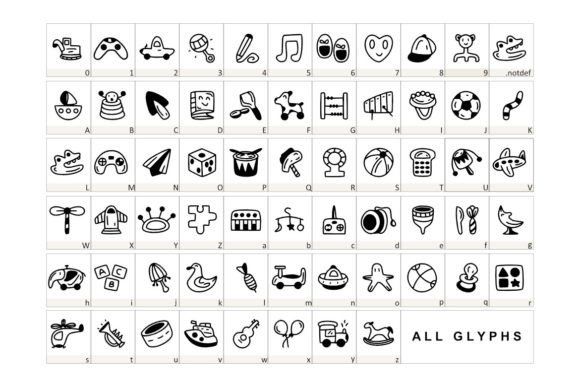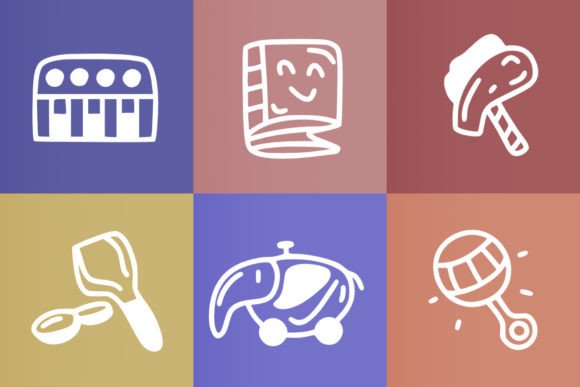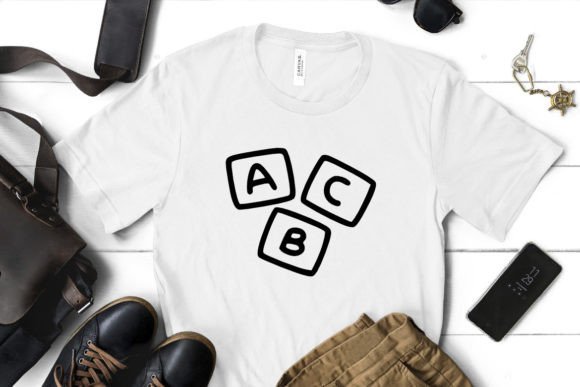
The Enjoyable Font: A Fun and Versatile Dingbat for Creative Projects
I’ll never forget the time I was working on a project for a client who wanted a fun and quirky design for their t-shirt line. I had a clear idea of what I wanted to create, but I was struggling to find the perfect font to bring it all together. That’s when I stumbled upon the Enjoyable font, and it completely transformed my design. In this article, I’ll share my experience with this amazing font, its features, and how you can use it to take your creative projects to the next level.
An Honest Review of Enjoyable Font
What I Love About Enjoyable Font
- ✨ Fun and playful design: The Enjoyable font is perfect for creating eye-catching and engaging designs that appeal to a wide range of audiences.
- ✅ Versatility: This font is suitable for a variety of projects, including stickers, posters, t-shirts, cards, and apparel graphics.
- 💡 Inspires creativity: The Enjoyable font’s unique design elements and OpenType features make it easy to experiment and try out new ideas.
While the Enjoyable font is an excellent choice for many projects, there are a few things to keep in mind:
- 🤔 Limited use in formal designs: Due to its playful nature, the Enjoyable font may not be the best fit for formal or professional designs.
- ⚠️ Requires careful kerning: As with any font, it’s essential to adjust the kerning to ensure that the text looks balanced and visually appealing.
The Backstory of Enjoyable Font
The Enjoyable font was designed with the goal of creating a fun and versatile dingbat font that could be used in a variety of creative projects. The designer wanted to create a font that would inspire users to experiment and try out new ideas. With its unique design elements and OpenType features, the Enjoyable font has become a popular choice among designers, crafters, and creative hobbyists.
Q: What type of projects is the Enjoyable font best suited for?
A: The Enjoyable font is perfect for a wide range of projects, including stickers, posters, t-shirts, cards, and apparel graphics.
Q: Is the Enjoyable font available in different styles?
A: The Enjoyable font comes in a single style, but its OpenType features and glyphs provide a range of options for customizing your design.